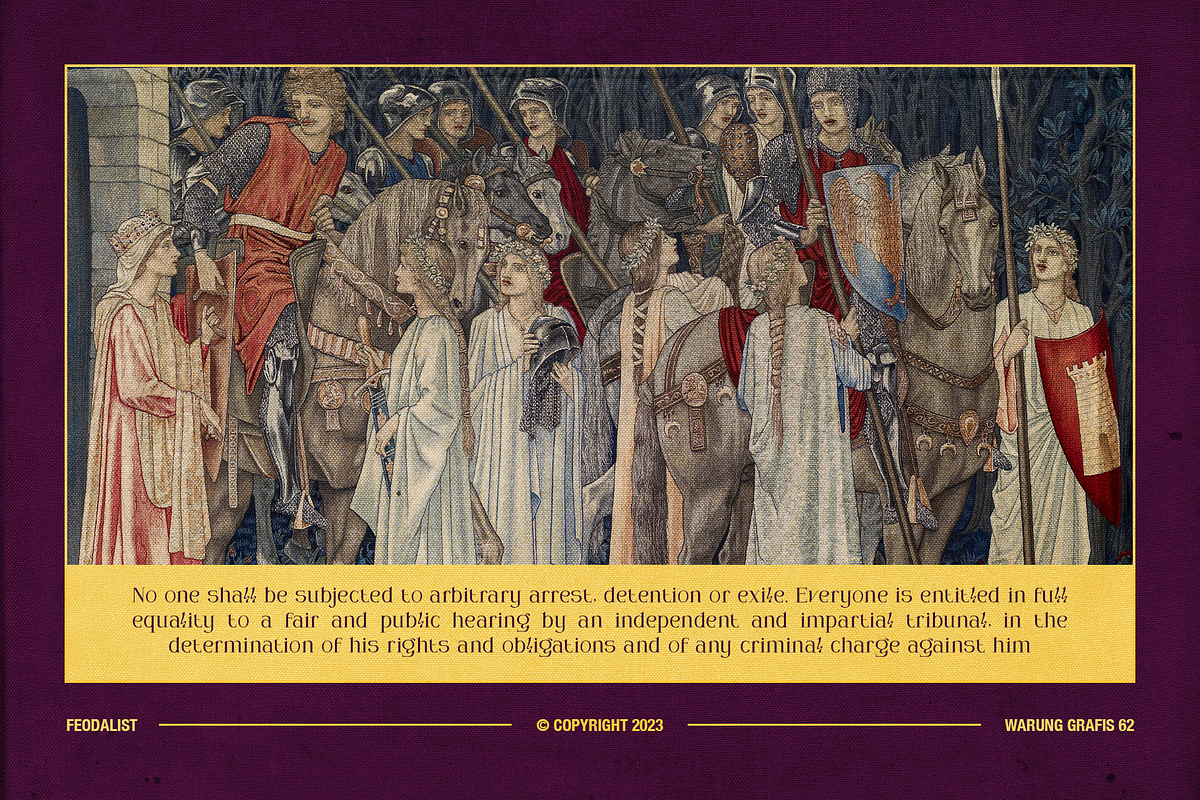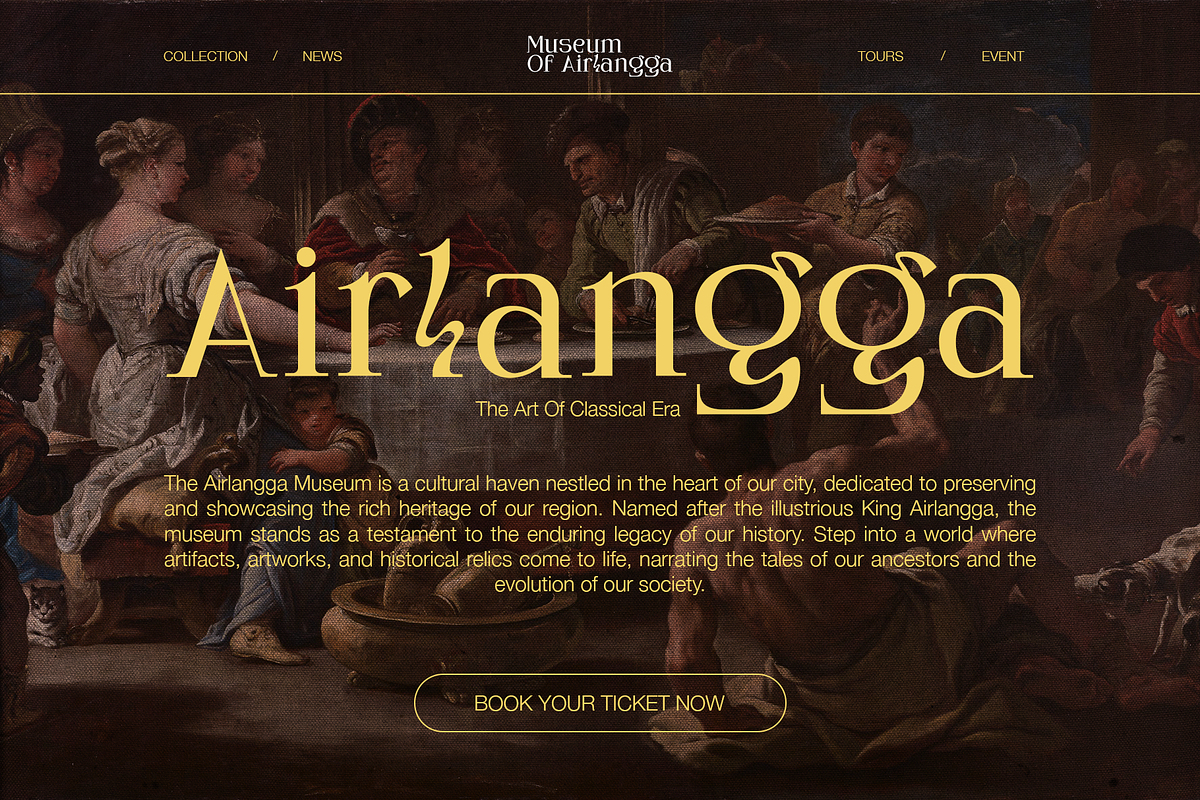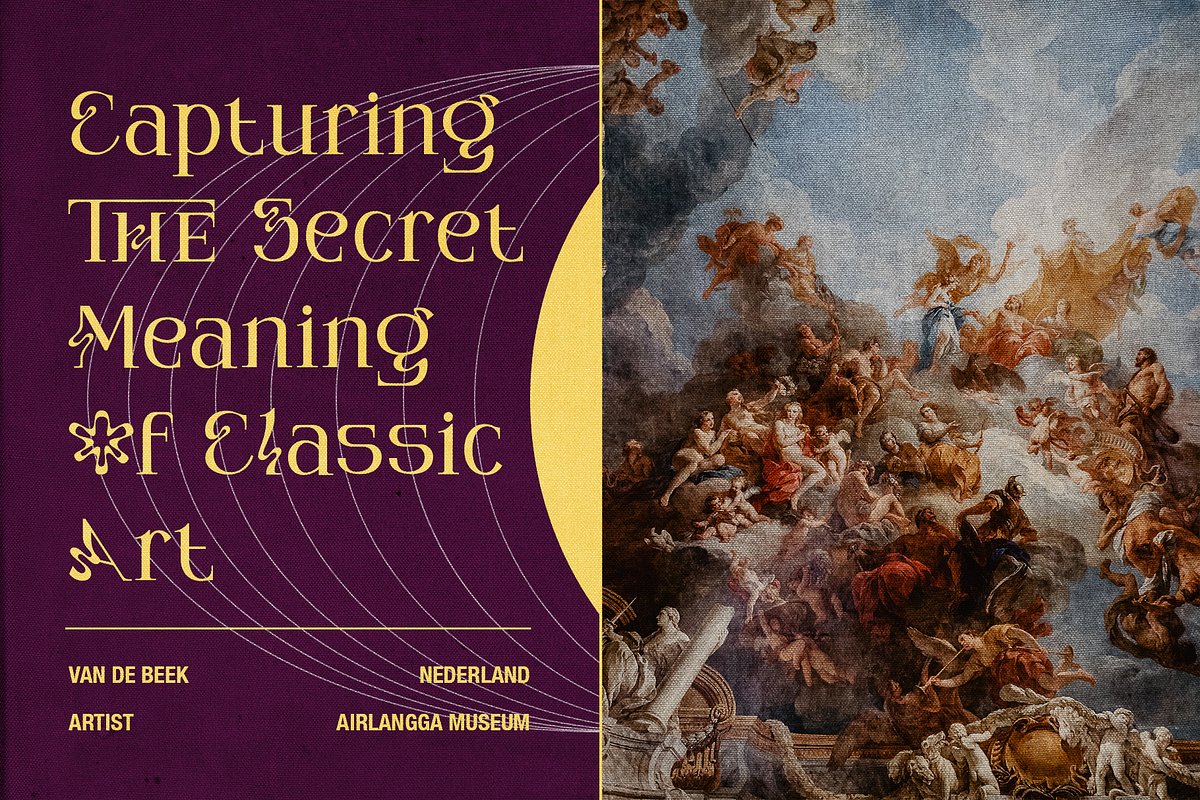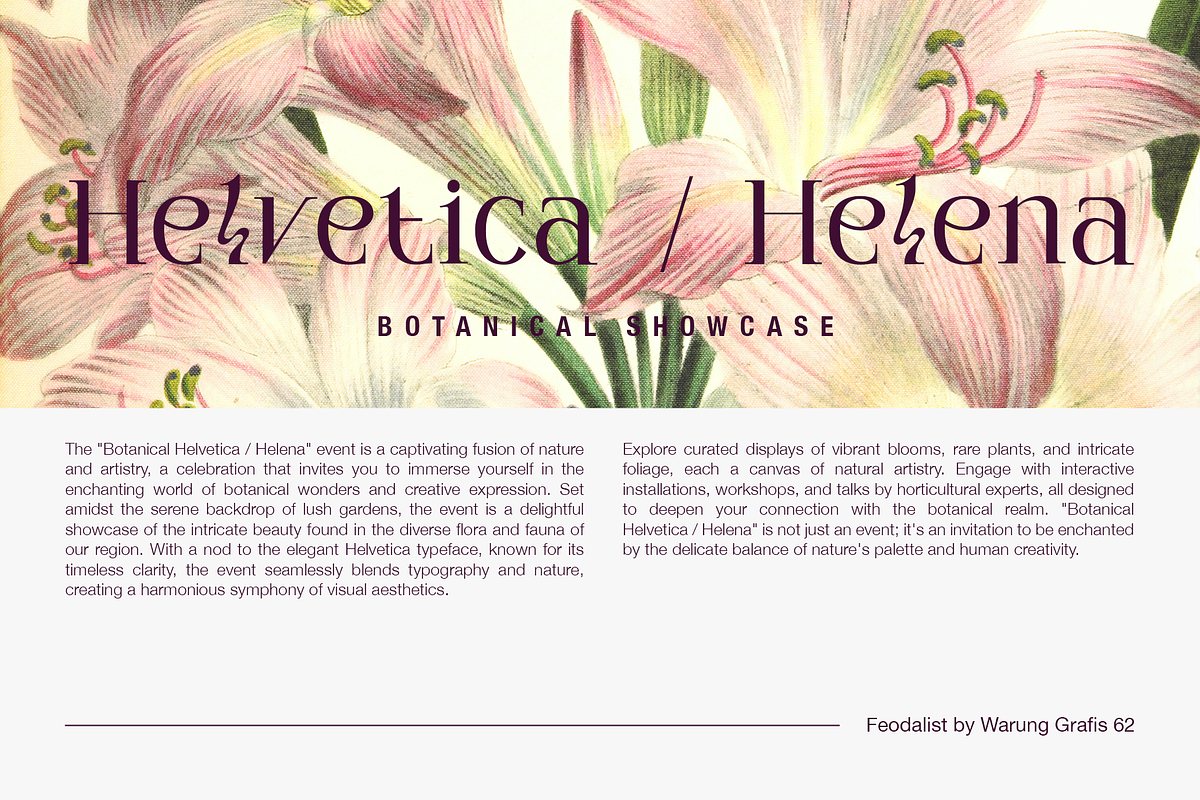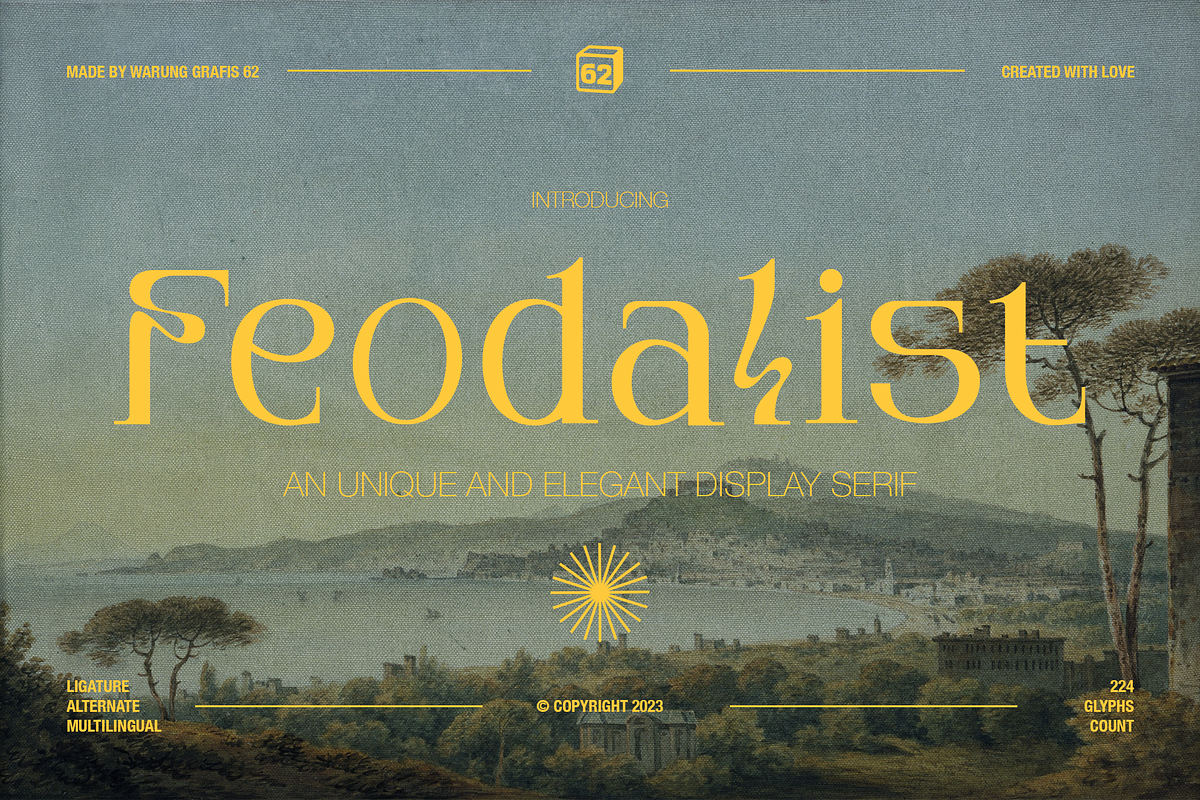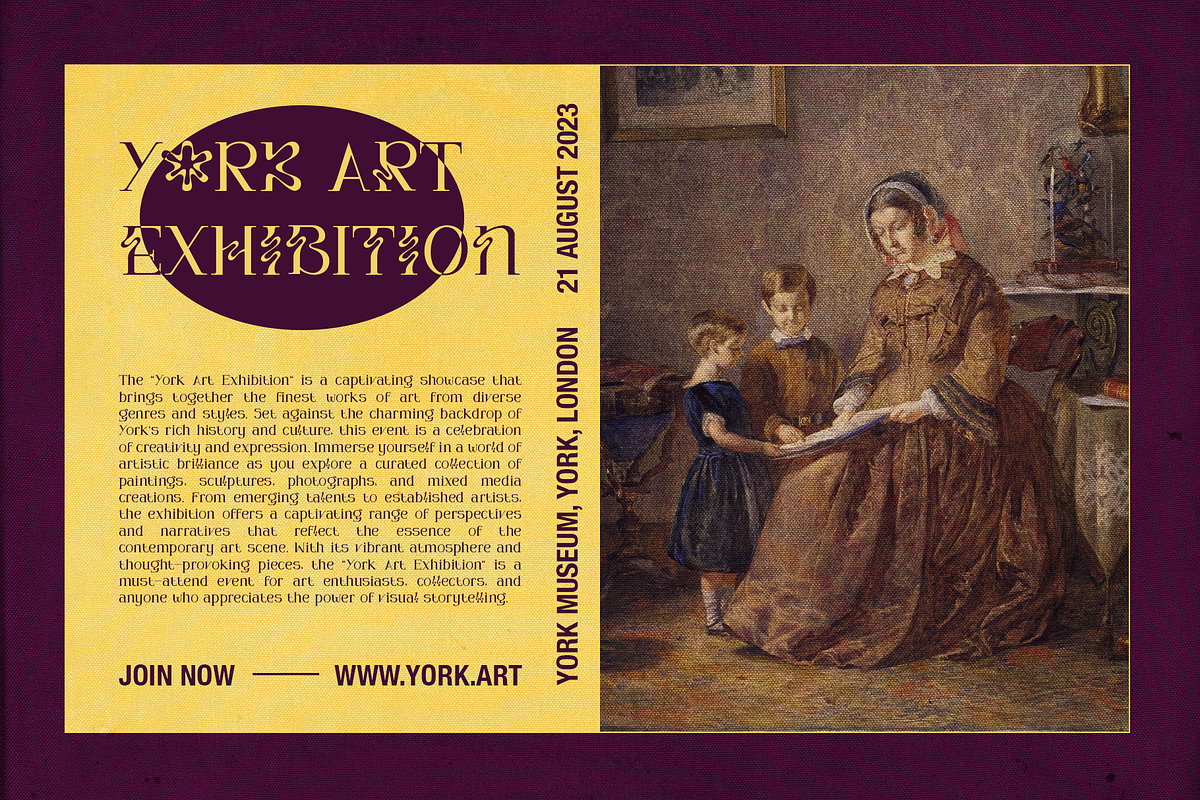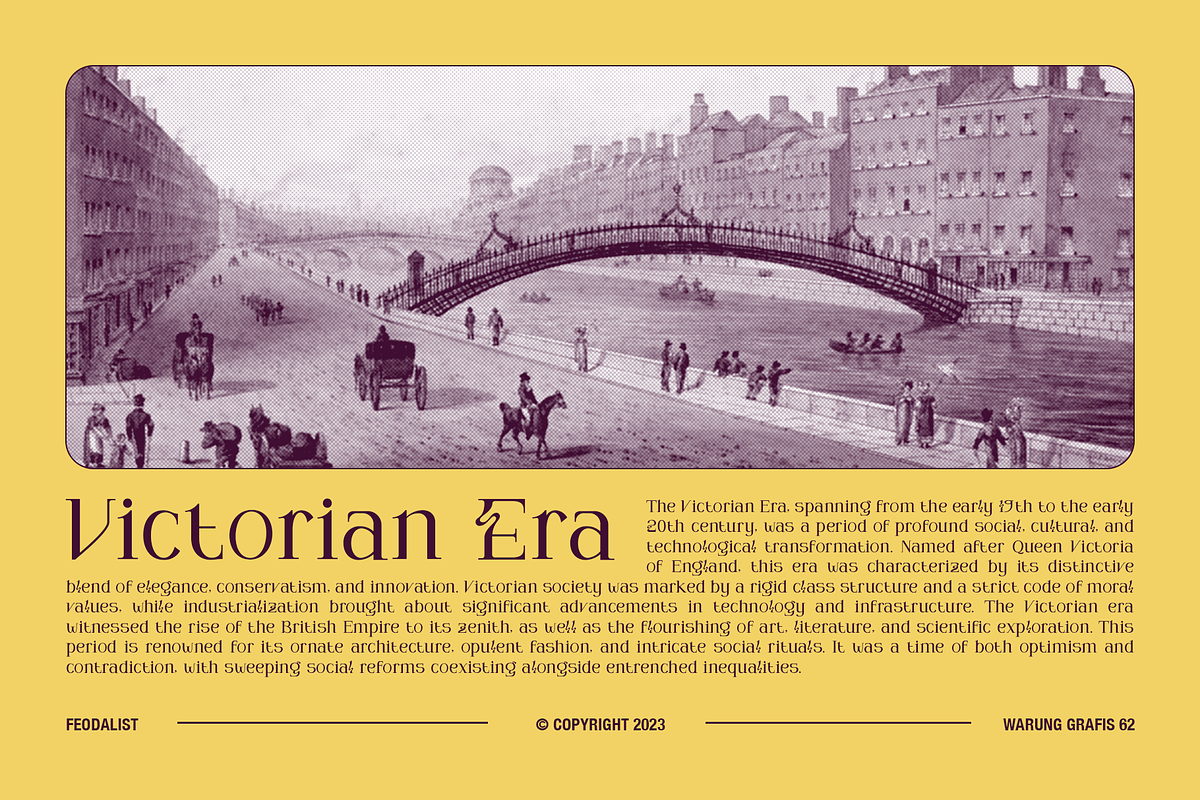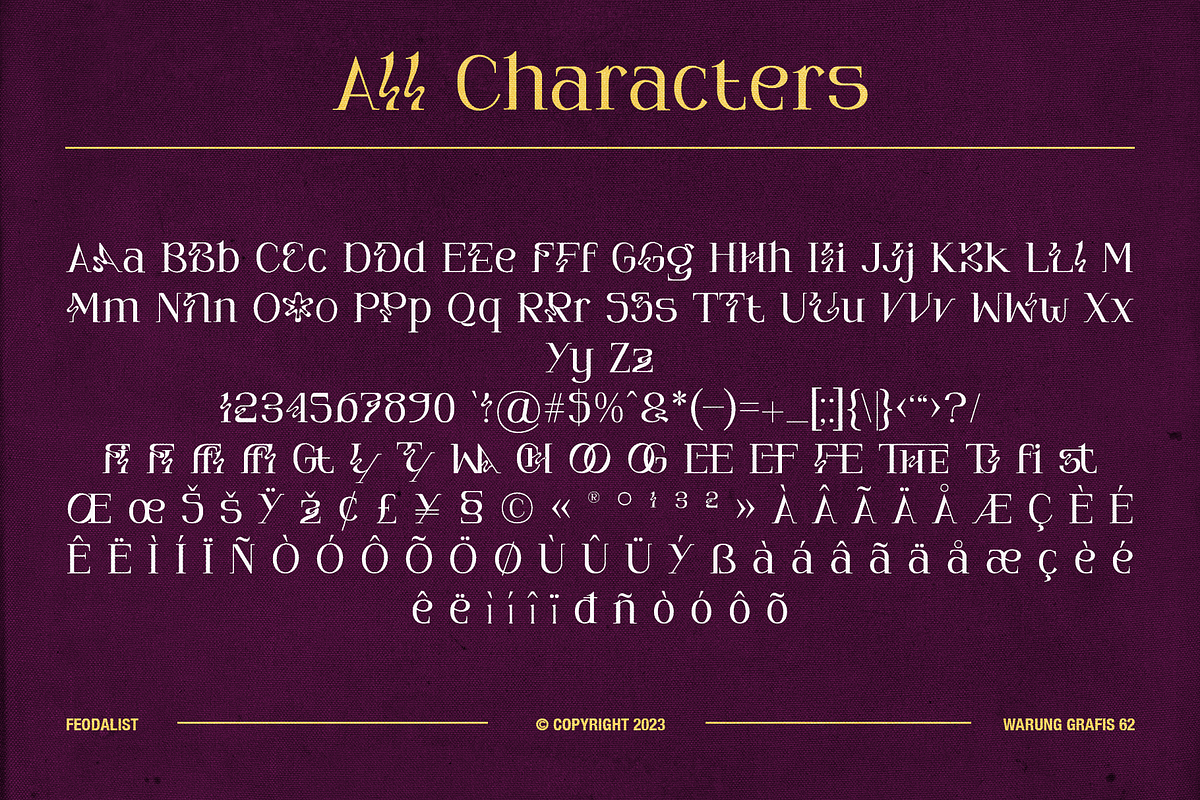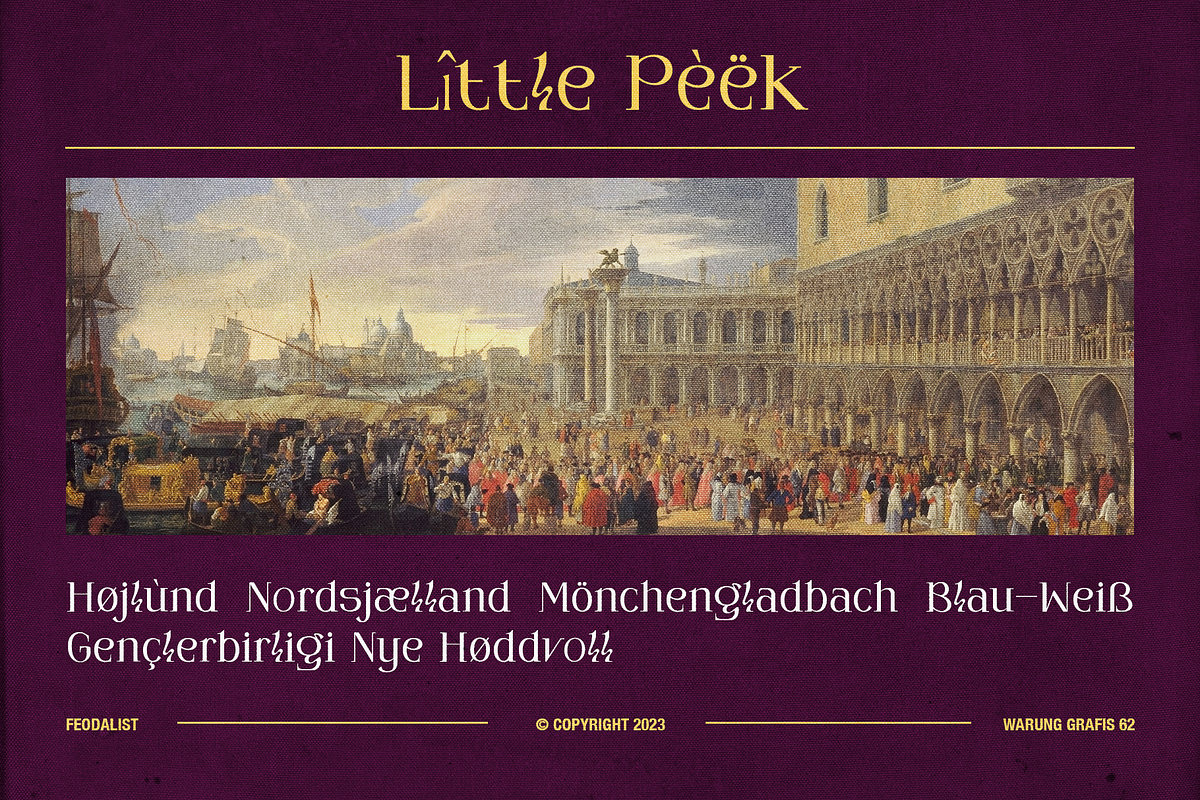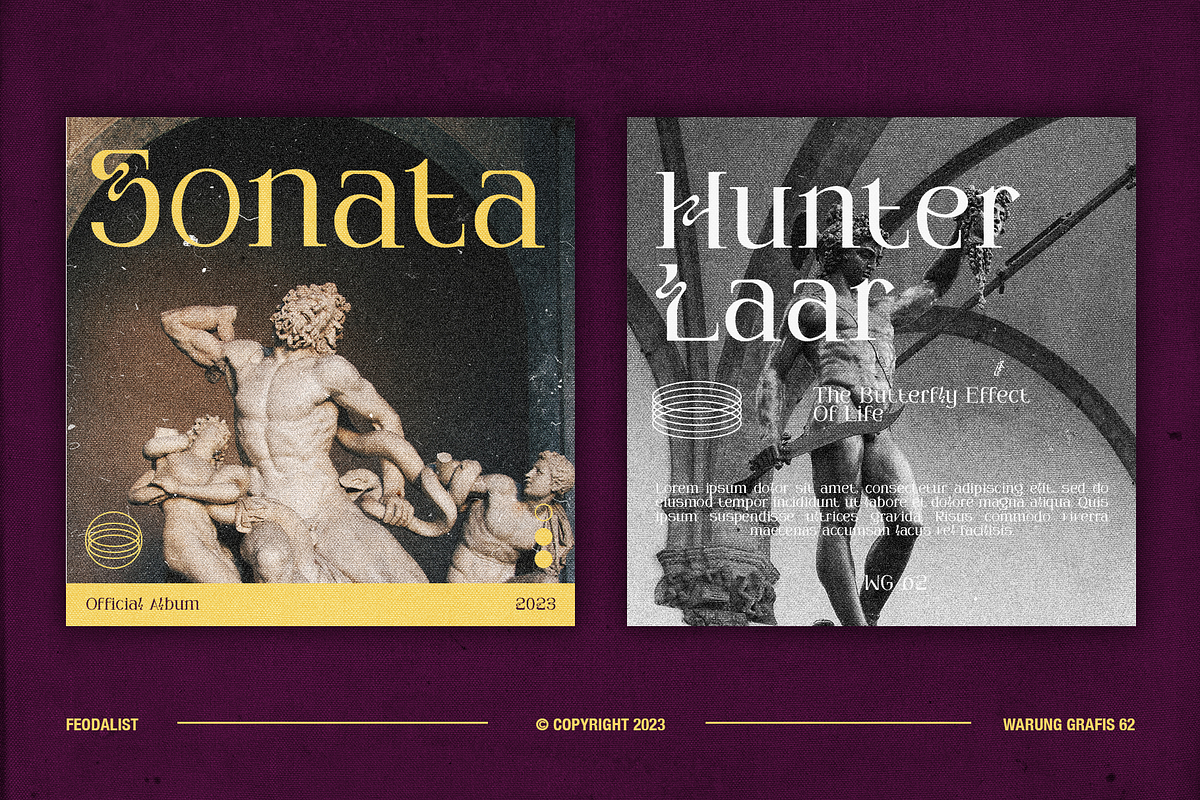
Feodalist - Elegant Display Serif
Feodalist is a timeless serif font that effortlessly embodies elegance and luxury. Its classic design, with a touch of uniqueness, adds sophistication to various projects. With meticulously crafted letterforms, Feodalist seamlessly fuses tradition and modernity. The font encompasses:
- Uppercase and lowercase letters
- Symbols, numbers, and punctuation
- Ligatures and alternates for added versatility
- Multilingual support for broader usability
Feodalist offers a comprehensive toolkit for your creative endeavors. It's balanced proportions and graceful curves capture the essence of bygone eras while ensuring its relevance in contemporary designs. Whether for branding, editorial work, or more, Feodalist exudes an exquisite charm that stands the test of time and trends.